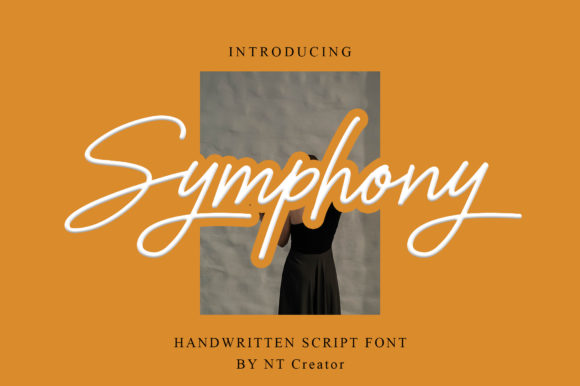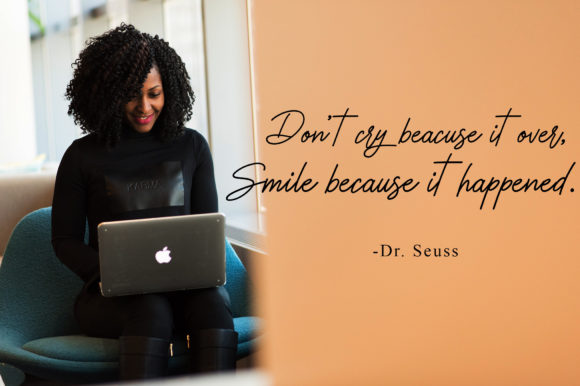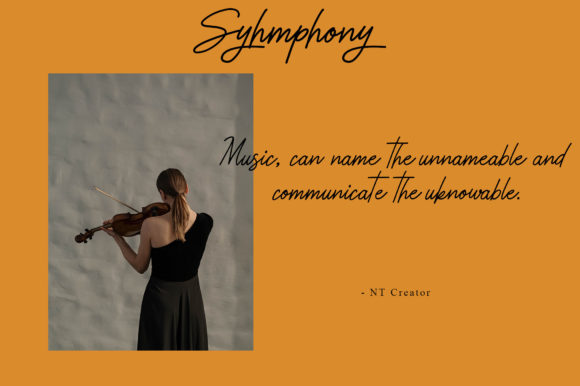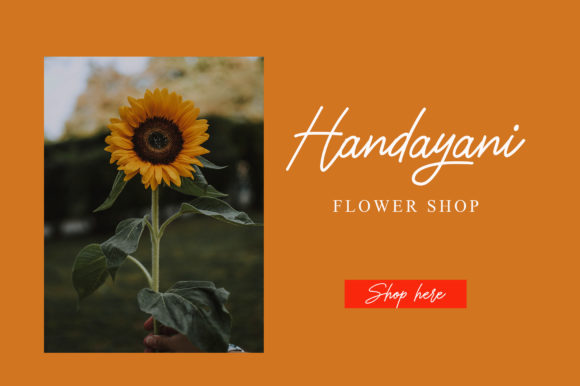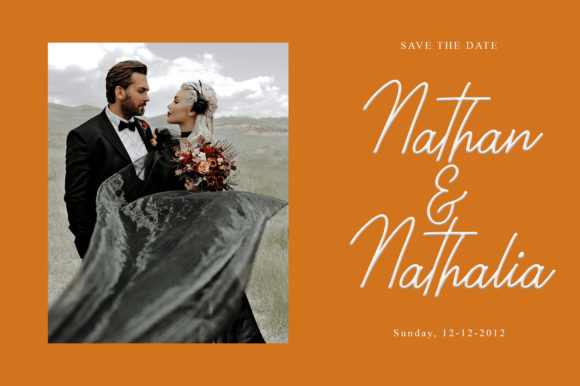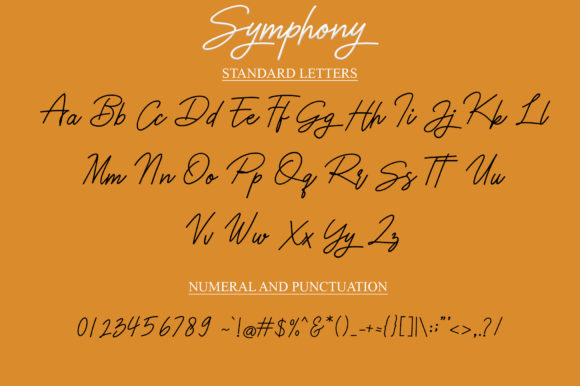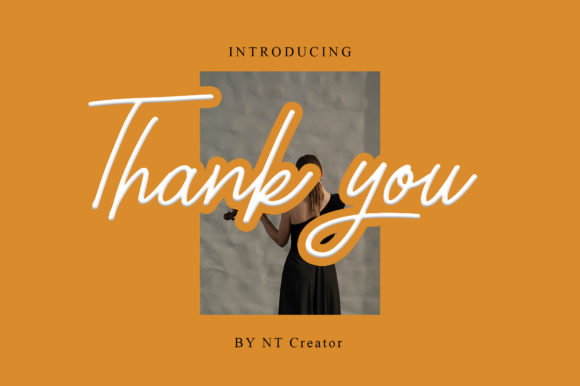
Symphony Font
Symphony is a breathtaking calligraphy typeface that exudes romance, elegance, and a touch of luxury. With its flowing characters that dance gracefully along the baseline, this font adds a mesmerizing spark to any design project.
The beauty of Symphony lies in its intricate and delicate letterforms, meticulously crafted to capture the essence of calligraphic art. Each character is imbued with a sense of harmony and grace, creating a visually captivating experience for the reader. Whether used for wedding invitations, love letters, branding materials, or any other creative endeavor, Symphony elevates the aesthetic to new heights.
The enchanting baseline and stunning ligatures of Symphony enhance the overall allure of the font, adding a luxurious touch to your designs. The characters seamlessly connect, creating a harmonious flow and a truly captivating visual experience. The font’s PUA encoding ensures effortless access to a wide range of amazing glyphs and ligatures, allowing you to customize and enhance your designs with ease.
Symphony brings a sense of sophistication and charm to any project, making it ideal for romantic and sentimental occasions. Whether you’re designing for weddings, anniversaries, or other special events, Symphony’s elegant and romantic style creates a captivating atmosphere that speaks to the heart.
The versatility of Symphony enables it to shine across various design applications. From logos and branding materials to social media graphics and packaging, this font adds a touch of luxury and refinement to your visual communication. Its timeless and expressive nature ensures that Symphony can beautifully complement a wide range of design aesthetics.
In addition to its aesthetic appeal, Symphony is also designed for legibility and readability. Each letter is carefully crafted to ensure clarity and ease of reading, even at smaller sizes or in longer texts. This makes Symphony not only visually stunning but also practical for conveying your message effectively.
Embrace the romance and luxury of Symphony and allow it to bring a touch of magic to your design projects. With its captivating calligraphy style, abundance of glyphs, and seamless ligatures, Symphony offers endless possibilities for creating visually stunning and emotionally engaging designs. Let Symphony be your companion in creating truly extraordinary and memorable experiences through design.